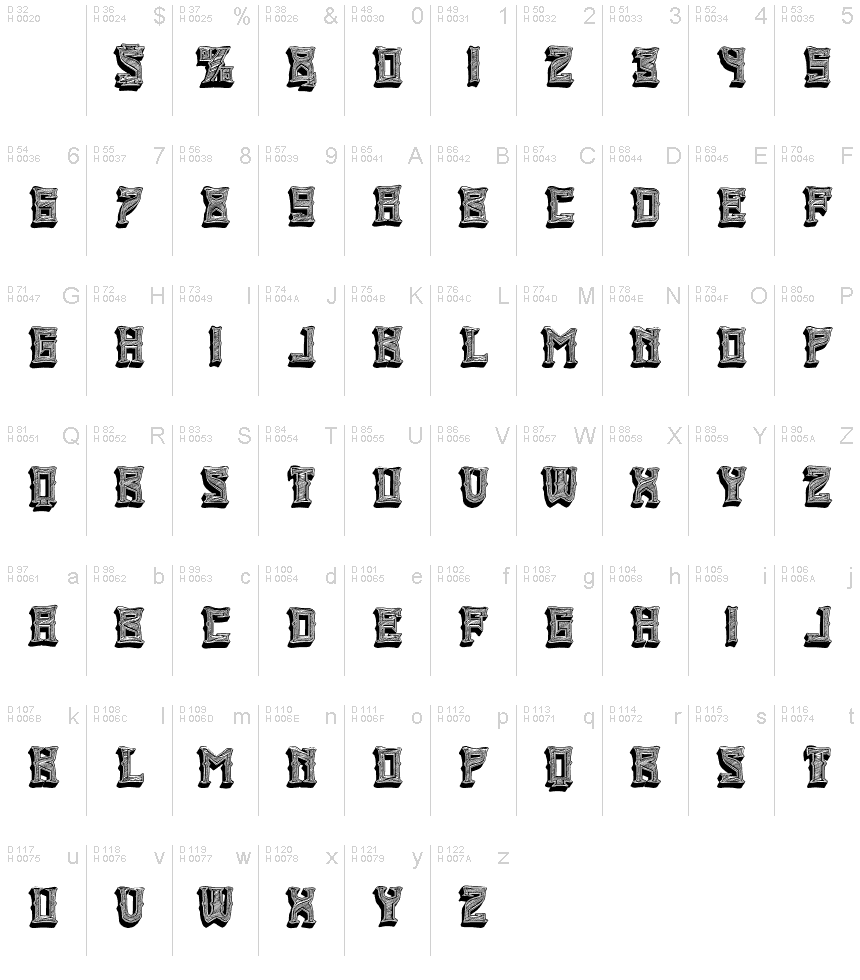
Gewidmet Regular
Gewidmet is a bold, decorative font designed by Vladimir Nikolic. It's perfect for creating eye-catching titles, logos, and posters. It's also great for adding flair to invitations and announcements.